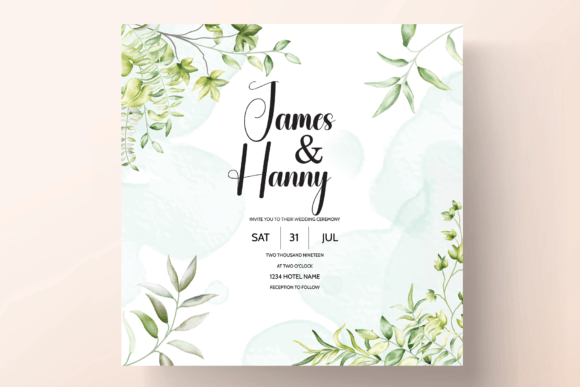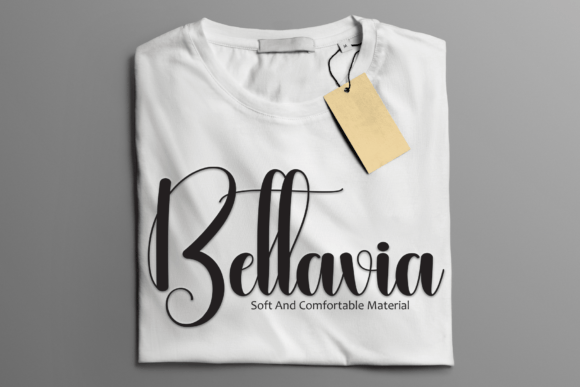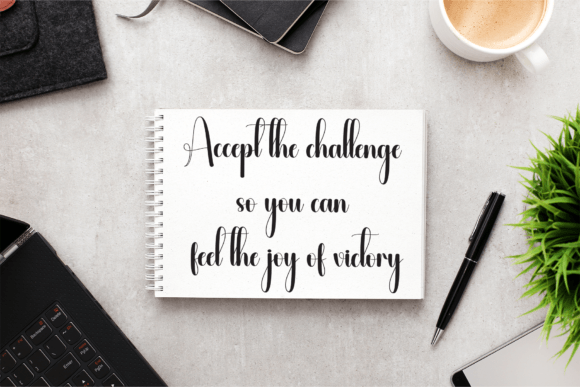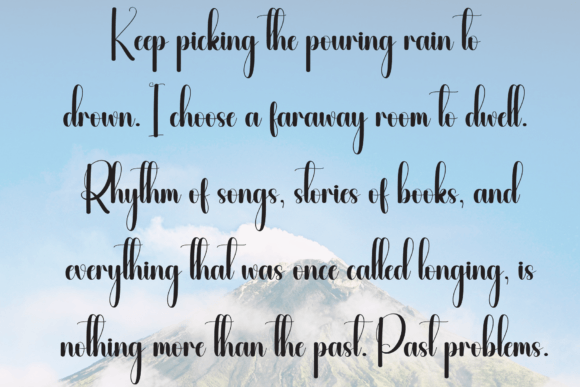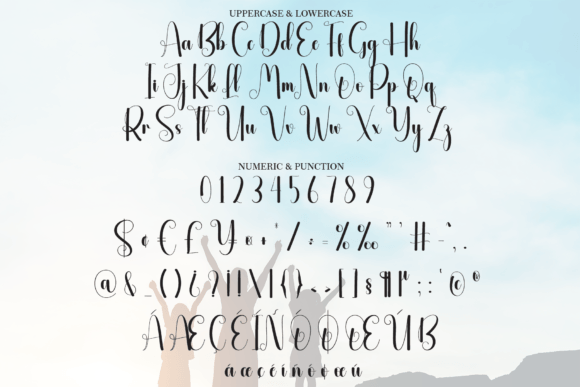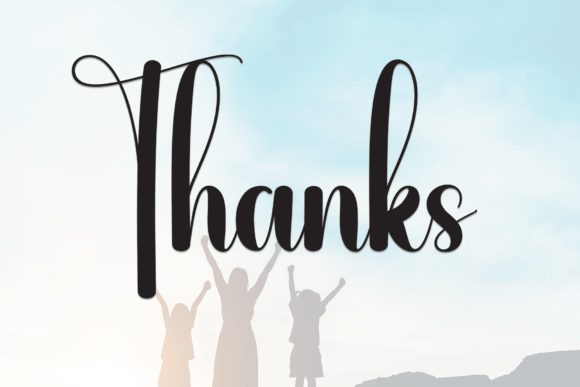
Introduction to Activeday Font
Have you ever stumbled upon a font that just sparks creativity and makes you want to dive into your next design project? For many designers, that moment is what makes all the difference. For me, it was the first time I laid eyes on the Activeday Font. Its energetic script and handwritten style radiated a sense of liveliness and positivity, making me want to create something that would inspire and motivate others.
As a designer, finding the right font can be a game-changer. It’s what sets your creative project apart and gives it that extra oomph. The Activeday Font is a high-quality design resource that’s perfect for active lifestyle branding, fitness-related projects, and designs that aim to inspire and motivate. With its dynamic letterforms and playful strokes, it adds a burst of energy to any design, making it a valuable asset for designers who want to make a lasting impact.
Key Features of Activeday Font
- High-quality design resource ideal for creative projects, offering a unique and modern look.
- Designed with a clean and minimalist aesthetic, making it perfect for a wide range of creative projects, from logos to brochures.
- Size: The font family includes multiple weights and styles, ranging from light to bold, providing flexibility for various design needs.
- Activeday Font is a versatile design resource suitable for various design projects, including digital and print materials.
Honest Review: Activeday Font
- ✨ The Activeday Font has a modern and sleek design aesthetic that can add a touch of sophistication to any project.
While the Activeday Font is a solid choice, I did encounter a few limitations:
- ⚠️ The font selection is relatively limited, with only a few styles to choose from.
- ⚠️ Some users may find the font to be a bit too modern or trendy for certain projects.
Overall, I’m impressed with the Activeday Font. Its high quality and modern design aesthetic make it a great addition to any design resource library. With a bit more expansion on the font selection, it could be a truly top-notch option for designers.
Tips for Getting the Most Out of Activeday Font
The Activeday Font is perfect for a variety of creative projects, including graphic design, branding, and digital marketing. It’s also great for creating engaging social media graphics, presentations, and documents. With its unique design and high-quality features, the Activeday Font is a valuable design resource for any project.